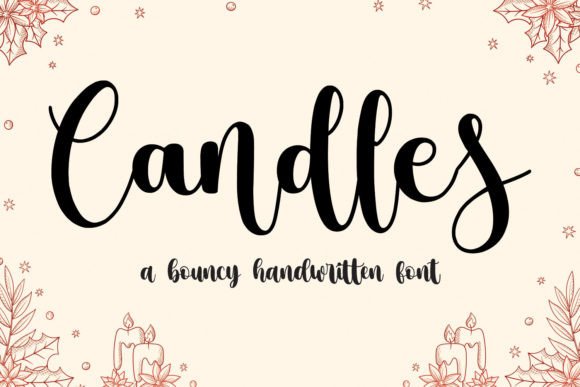
Introducing Candles Font: The Perfect Blend of Whimsy and Elegance
Have you ever been in the middle of a design project, and suddenly, you just can’t seem to find the right font? I recall a particularly frustrating experience while working on a client’s wedding invitation design. The project required a font that was both playful and sophisticated. After hours of searching, I stumbled upon “Candles,” a delightful bouncy script handwritten font that instantly elevated my design to the next level. In this article, I’ll share my experience with Candles Font, its features, and how to make the most of it in your designs.
A Personal Review of Candles Font
What I Love About Candles Font
• ✨ Unique and Playful Style: Candles Font brings a fresh and whimsical touch to any design project. Its bouncy script style is perfect for creating eye-catching greeting cards, invitations, logos, and branding materials.
• ✅ Elegant and Sophisticated: Despite its playful nature, Candles Font exudes elegance and sophistication, making it suitable for a wide range of design applications.
• 💫 Easy to Read: The font is meticulously crafted to ensure excellent readability, even at smaller sizes.
While Candles Font is an excellent choice for many design projects, there are a few minor quirks to be aware of:
• 🤔 Limited Use in Formal Designs: Due to its playful nature, Candles Font might not be the best fit for very formal or corporate designs.
• ⚠️ Requires Attention to Kerning: As with any script font, it’s essential to pay attention to kerning to ensure that the text looks polished and professional.
3. Experiment with OpenType features, such as Stylistic Alternates and Swashes, to add more flair to your text.
4. Take advantage of OpenType features, such as Glyphs and Ligatures, to add more creativity to your text.
The Backstory Behind Candles Font
Candles Font was designed with the intention of creating a unique and playful font that would bring a touch of whimsy to any design project. The designer aimed to craft a font that was both elegant and fun, making it suitable for a wide range of applications. The result is a font that is both versatile and eye-catching.
Q: What type of designs is Candles Font best suited for?
A: Candles Font is perfect for designing greeting cards, invitations, logos, branding materials, and any other project that requires a touch of whimsy and elegance.
Q: Is Candles Font easy to read?
A: Yes, Candles Font is designed to be highly readable, even at smaller sizes.